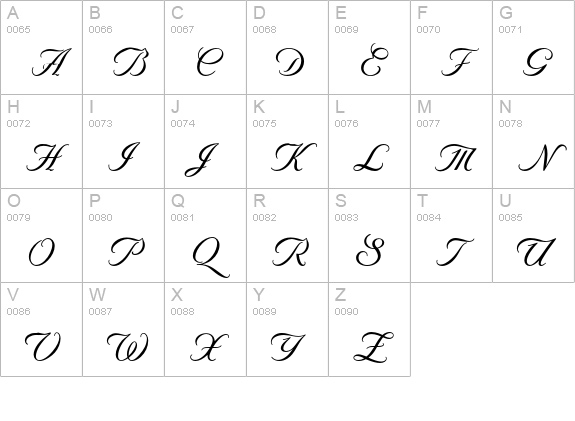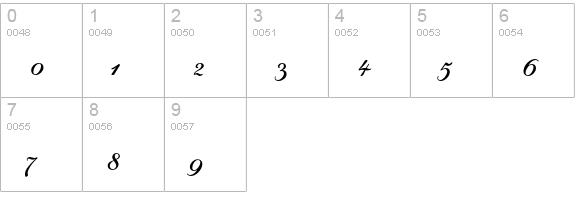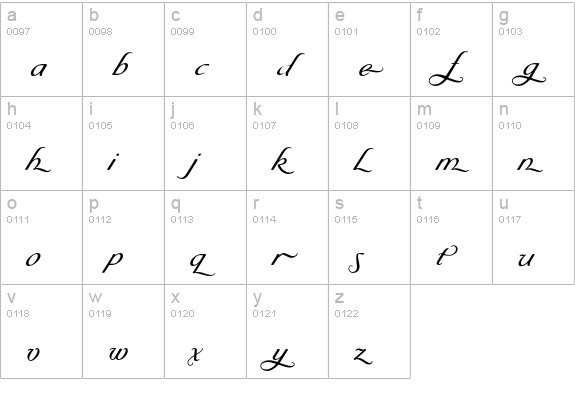
Byron RR Swash Medium is a balanced, medium-weight variant in the Byron typeface family \xE2\x80\x94 well suited to sub-headlines, navigation, and balanced editorial work.
Byron RR Swash Medium font exudes elegance and sophistication with its distinctive swashes and refined details. This versatile typeface is perfect for adding a touch of class to your designs, whether for wedding invitations, branding projects, or editorial layouts. What makes Byron RR Swash Medium font truly exceptional is that it is available for free download at FontsMarket.com. This means you can enhance your creations with this exquisite font without any cost, making it a valuable asset for designers looking to elevate their work without breaking the bank. With its timeless appeal and graceful letterforms, Byron RR Swash Medium font is sure to make a lasting impression on any project. Download it today and experience the beauty and versatility of this stunning typeface.